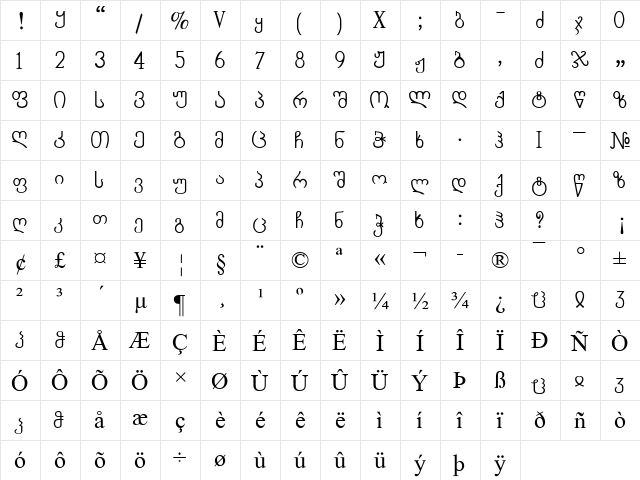
Chveulebrivi TD Regular Font Preview
Chveulebrivi TD Regular
Chveulebrivi TD Regular Font Details
Design Context for Chveulebrivi TD Typeface
Chveulebrivi TD offers clean, dependable letterforms without strong stylistic allegiance, making it a practical choice for designers who need flexibility.